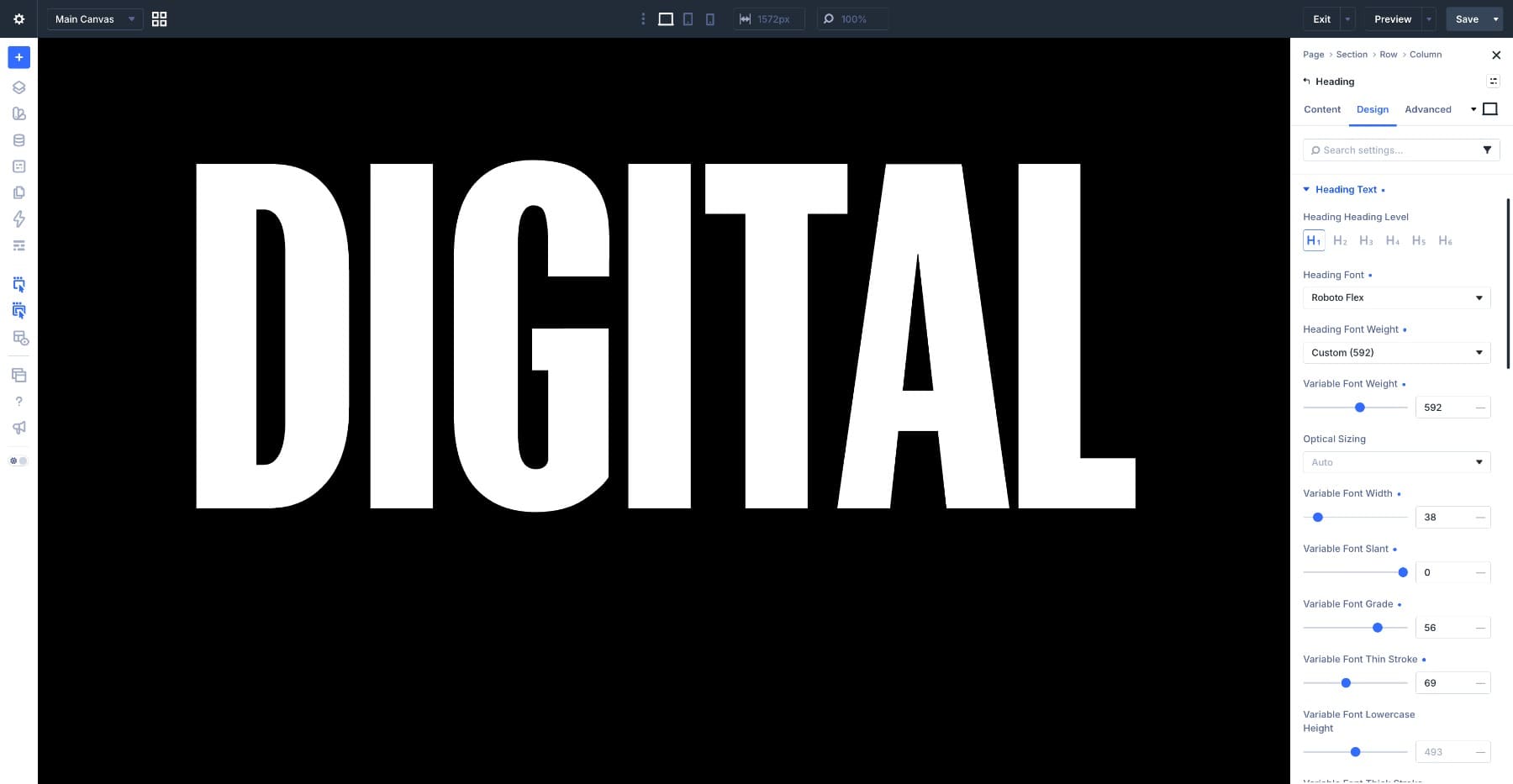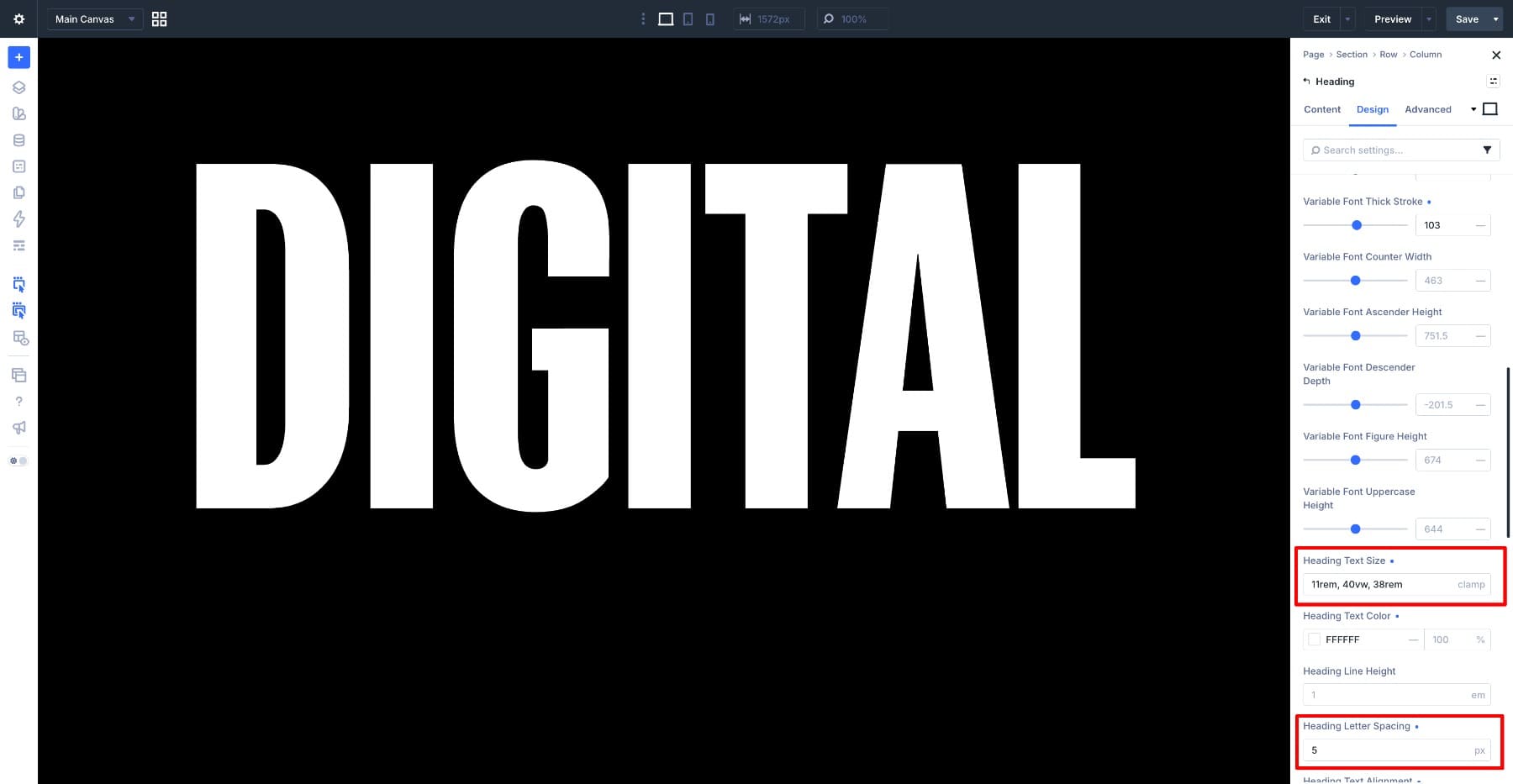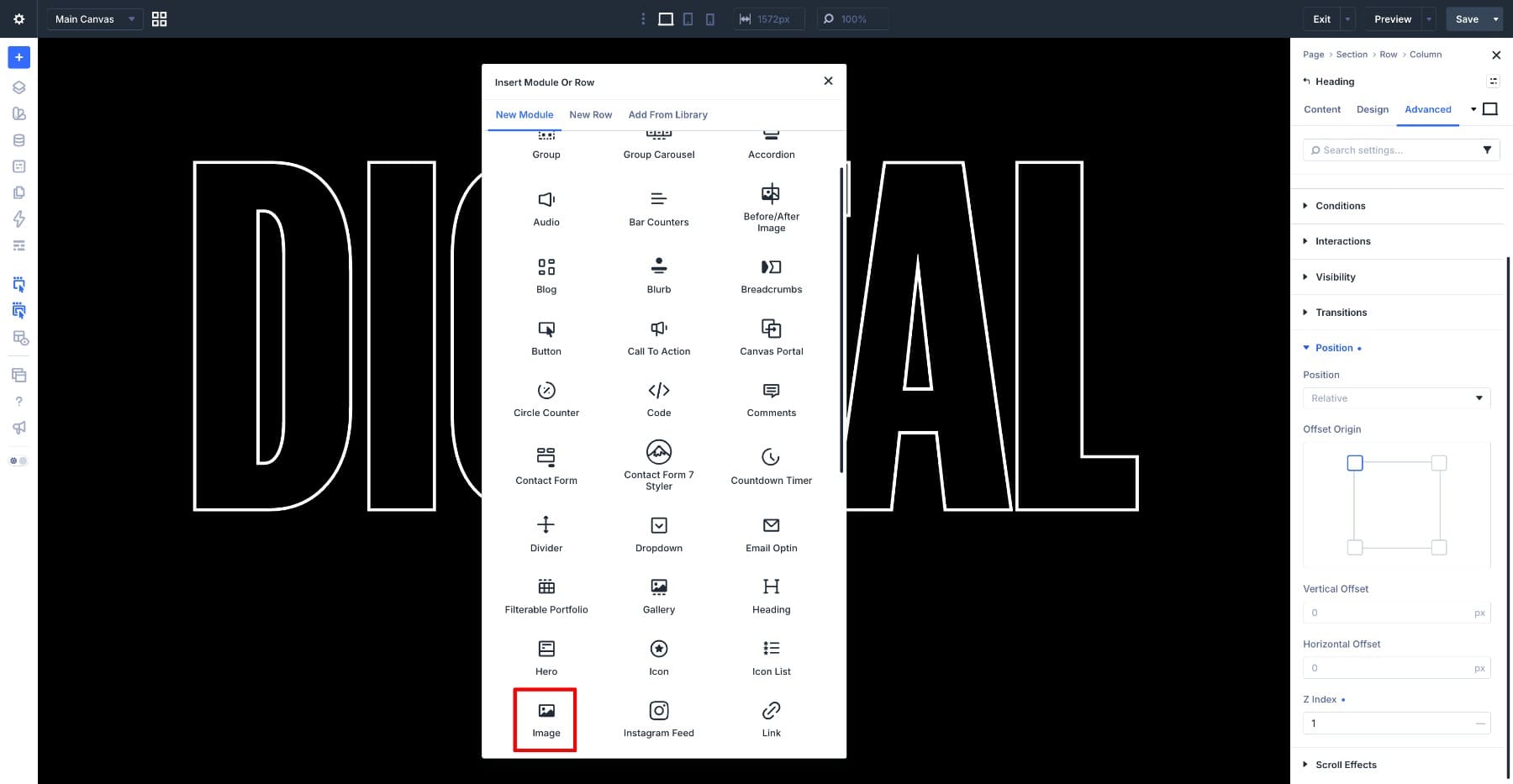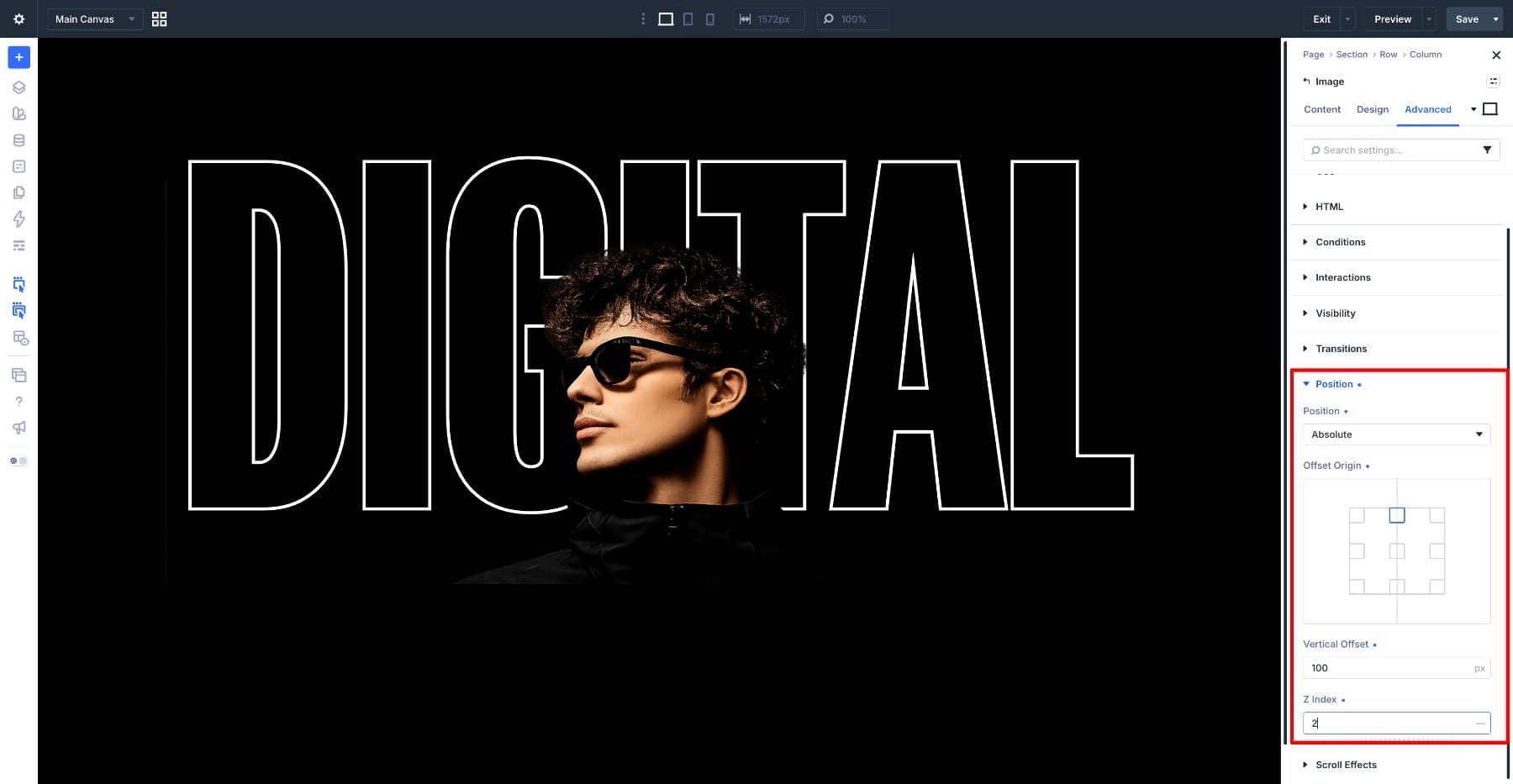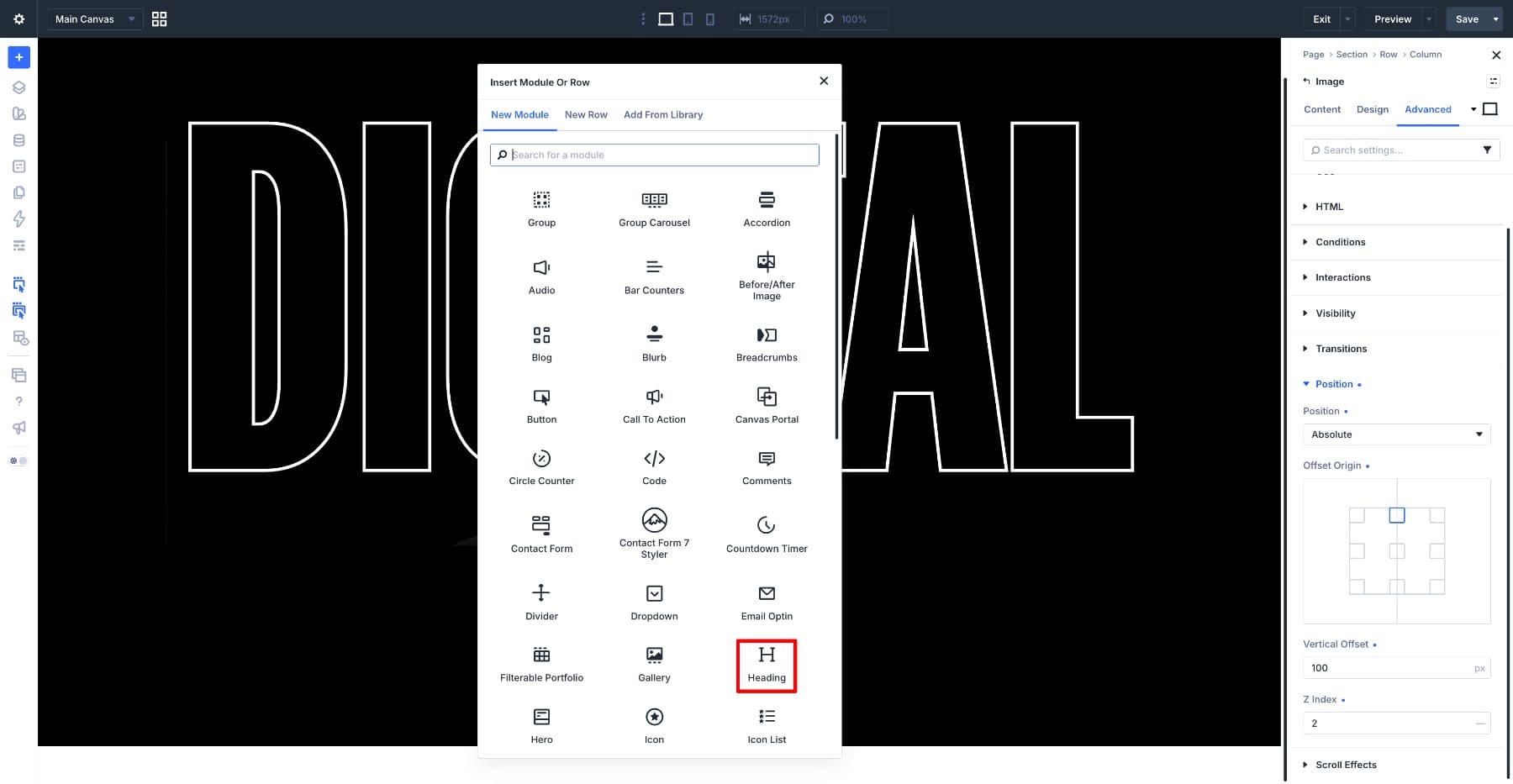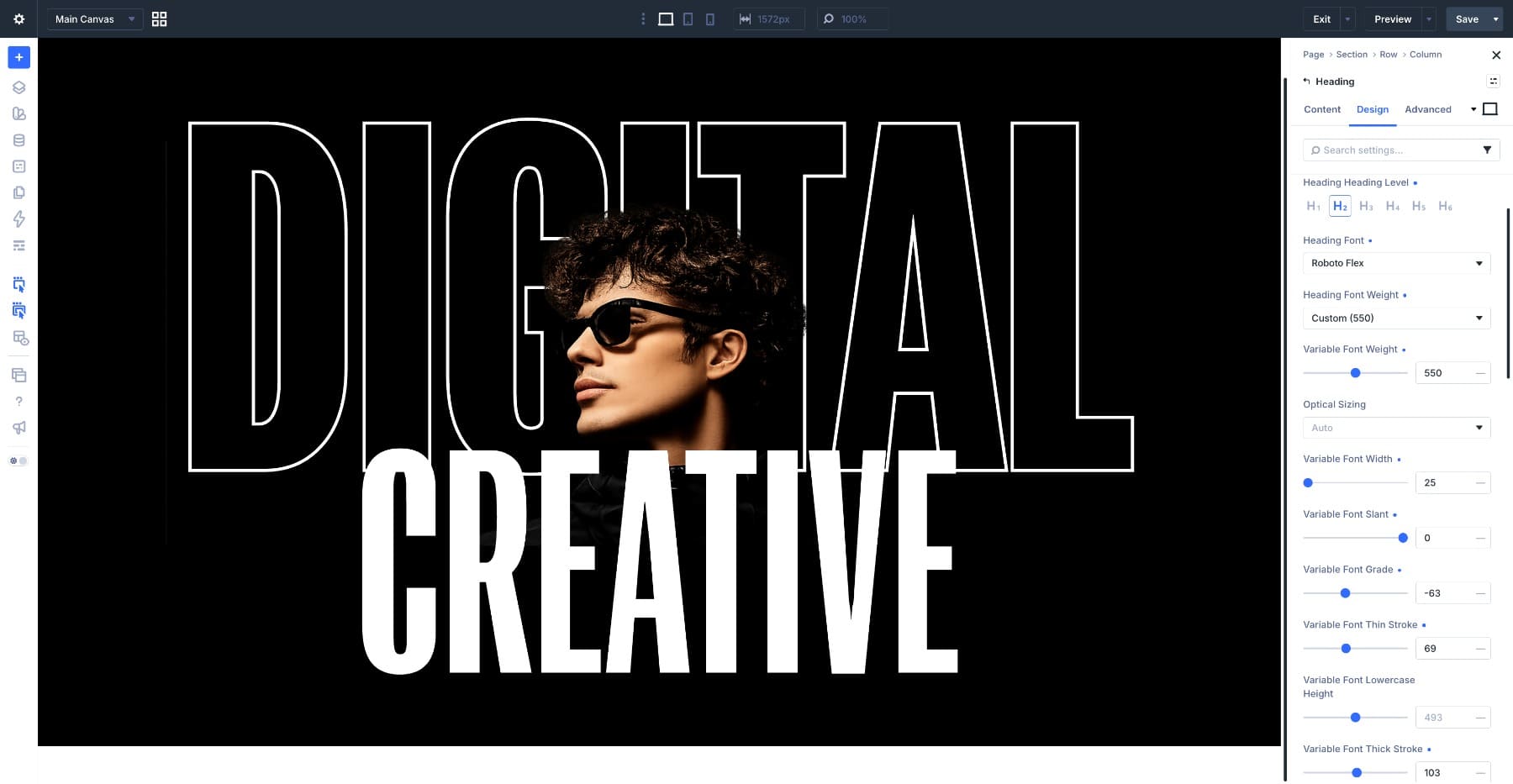
How To Use Text Stroke, Text Fill, And Variable Fonts Together In Divi 5
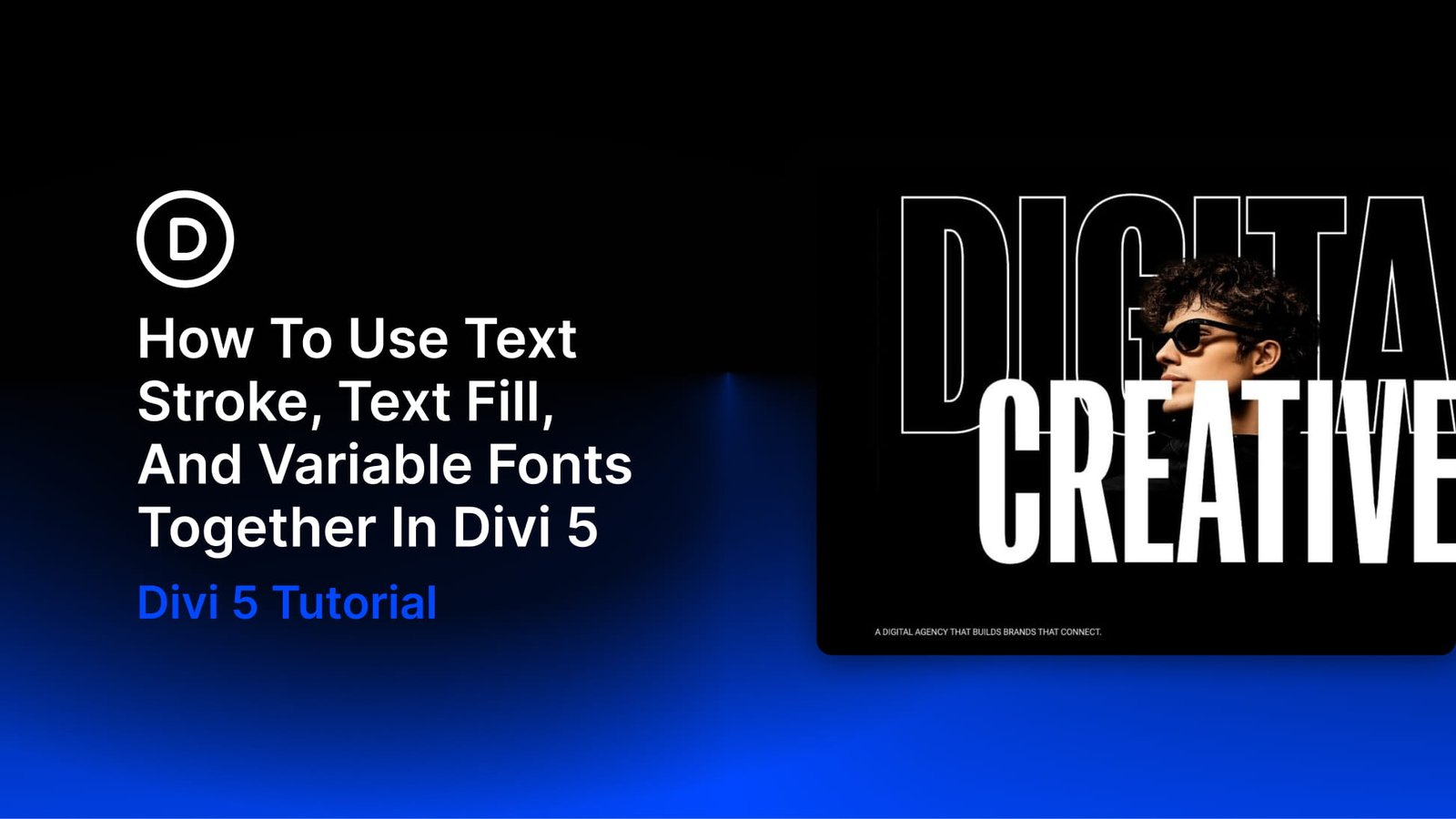
Variable fonts, Text Fill, and Text Stroke are three different typography controls in Divi 5. The font controls the shape of the letters. The fill controls what appears inside them. The stroke controls the edge.
You can use each one on its own, but they become more powerful when you combine them. A variable font can make a heading thick enough for a gradient to show clearly. A transparent fill and stroke can turn a word into a hollow outline. A wide, heavy letterform can hold an image pattern without losing readability.
There is no single recipe. Each design below uses the same three ingredients differently. The first layers outlined and solid text around a cutout photo. The second uses a gradient-filled number with a light stroke. The third fills a full-width heading band with an image pattern.
Along the way, we’ll look at how variable font axes, Text Fill, Text Stroke, Gradient Variables, and presets work together so you can build more intentional typography effects directly inside Divi 5.
Understanding Variable Fonts, Text Fill, And Text Stroke
These settings live in the Design tab of text-based modules and text option groups, including Text, Heading Text, and Title Text. Variable font controls appear near the font selection when the selected font supports them. Fill and stroke settings appear in the text effects area of the same text group.
We covered each fill type in our guide to Divi 5’s text fill options. In this tutorial, we’ll focus on how the settings affect each other once you start combining them.
Variable Fonts
Apply a supported variable font to an element, and Divi 5 shows the axes available for that font. Each axis changes part of the letterform.
Weight controls how heavy the strokes are. Width controls how narrow or expanded the letters feel. Depending on the font, you may also see axes such as Slant, Grade, Thin Stroke, Thick Stroke, or other font-specific controls.
For this tutorial, the important part is the surface area inside each letter. Heavier and wider settings usually give fills more room to show. Lighter and narrower settings leave less room for gradients, images, and strokes to work.
The open areas inside letters like e, a, o, and g are called counters. If a stroke is too thick or a font weight is too tight, those counters can start to close up. Keep that in mind as we build the examples.
Text Fill
Text Fill controls what appears inside the letter shape.
Set Fill Type to Gradient, and the letters are filled with a gradient. Set it to Image, and the letters become a mask for an image. Set it to Transparent, and the inside of the letters becomes see-through, which works well when paired with a stroke for outlined text.
The fill only has the inside of the letter to work with. A heavy heading gives the fill a wide surface. A light heading gives it a thin strip. That is why a gradient can look rich inside a bold heading but almost flat inside a thin one.
Text Stroke
Text Stroke draws a line around the edge of the letters. The most important controls are Stroke Width, Stroke Color, and Stroke Position.
Stroke Position matters because it changes how much of the fill stays visible. A centered stroke sits partly inside the letter and partly outside it. The inner part covers some of the fill. An outside stroke protects more of the fill because the outline sits beyond the letter shape.
For example, a centered 3px stroke can work nicely on a large, heavy heading because there is still plenty of fill visible inside the letters. On a smaller or lighter heading, that same stroke can take over too much of the letter and make the fill harder to see.
When you want a stroke to define the edge without cutting into a gradient or image fill, use an outside stroke position where available. When you want the stroke to feel more integrated with the letterform, a centered stroke can still work, especially at large sizes.
How The Three Affect Each Other
The font decides the letter shape. The fill sits inside that shape. The stroke defines the edge. That order matters. Set the variable font axes first so the letters have the right weight, width, and counters. Then choose the fill. Then decide whether the stroke should be subtle, bold, centered, or outside.
A gradient needs enough letter surface to show movement. An image fill needs enough surface to show detail. A stroke needs enough letter width to avoid crowding the fill. Once you understand that relationship, you can combine the settings more freely and still keep the heading readable.
Design 1: A Layered Hero With Outlined And Solid Text
The first design puts two headings on top of each other. The back word is hollow, using a transparent fill and a white stroke. The front word is solid white and sits over the cutout photo.
This combination works because each layer has a different job. The outlined word creates the scale and structure of the hero. The cutout photo adds depth. The solid word carries the main message. Nothing here needs a gradient or image fill. The effect comes from the font axes, one transparent fill, one stroke, and careful stacking.
Each example in this tutorial applied the same idea in different ways. The layered hero used transparent fill and a white outline. The oversized number used a gradient fill with a light stroke. The full-width band used an image pattern with an orange outline.
Once you understand how the font shape, fill, and stroke affect each other, you can create your own combinations without relying on fixed formulas.